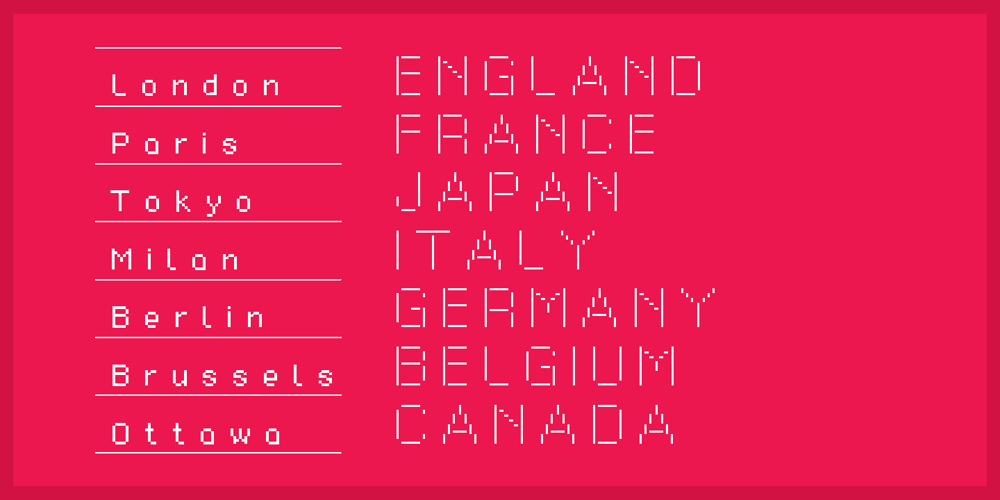
Furniture Type Font Family was designed by Jeremy Johnson and published by Forme Type. Furniture Type contains 4 styles and family package options. Forme Furniture Type Em and Furniture Type En Designed by using the pieces of letterpress furniture usually hidden, to create letter shapes. The square nature of the type means it could be used as a low resolution type. Forme Furniture Type Em – Low resolution type. Designed using *Furniture and **Em quads from letterpress printing. *Furniture: Pieces of wood or metal placed around or between metal type to make blank spaces and fasten the printed matter in the chase. ** Quads: (originally quadrat) is a metal spacer used in letterpress typesetting. An em quad is a space that is one em wide and one em high. Also available as Em Shadow to be used as a headline or display font. Forme Furniture Type En – Low resolution type. Designed by using *Leads and ** En quads from letterpress printing. *Lead or Reglet is a piece of Lead or wooden spacing material used in letterpress typesetting, to provide spacing between paragraphs. **An En quad is a space that is one En wide half the width of an Em quad, and the same height as the typeface. Also available as En Shadow to be used as a headline or display font.